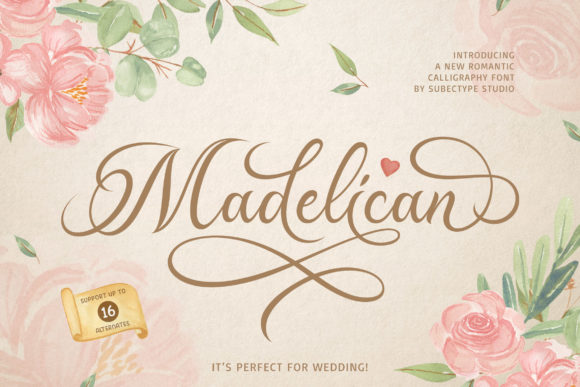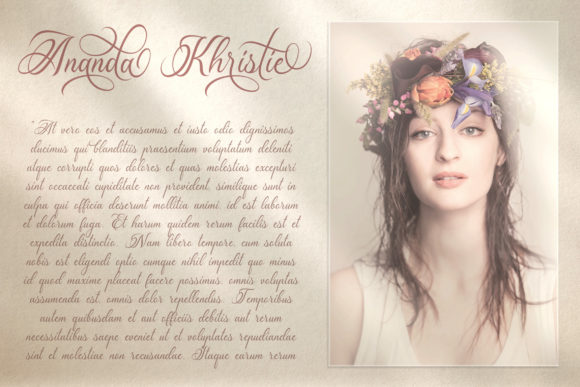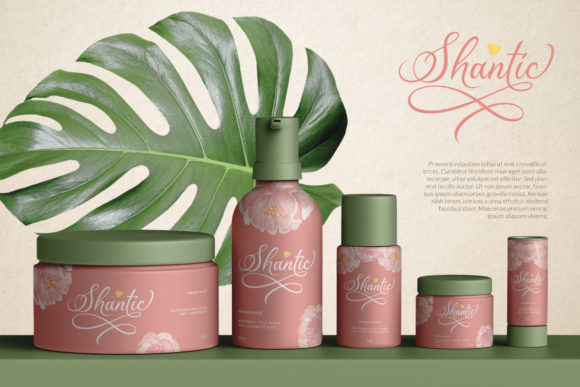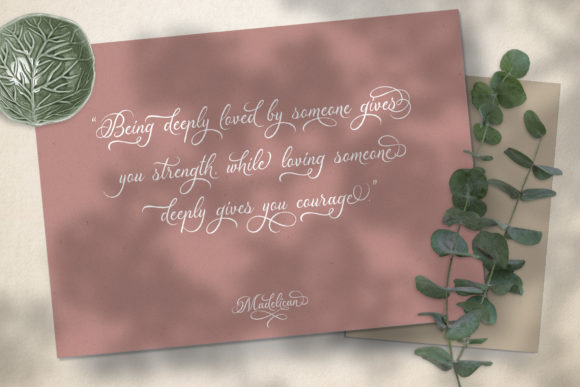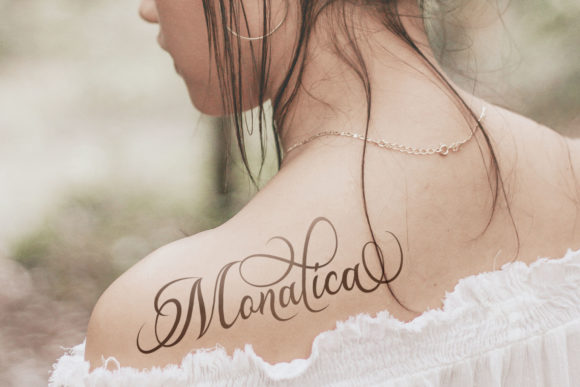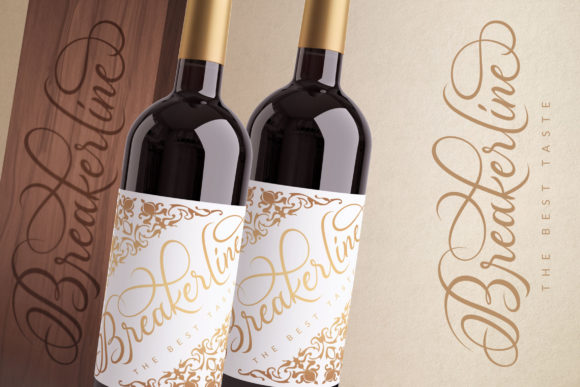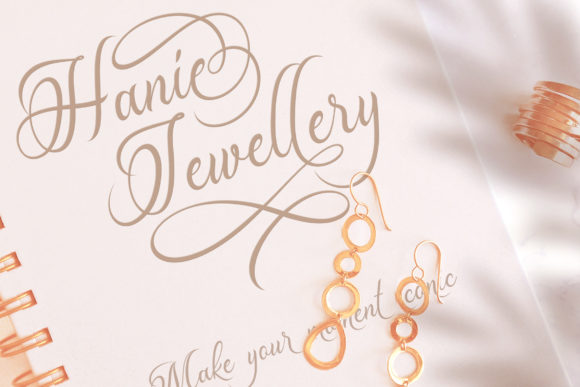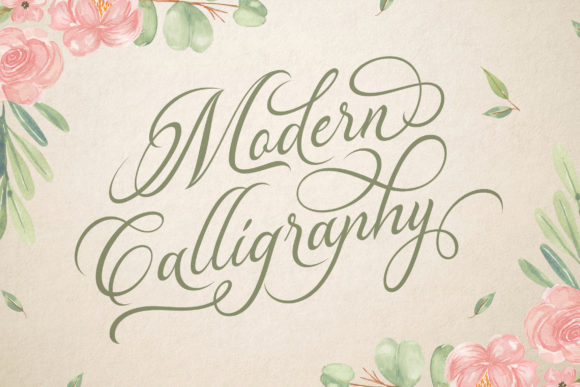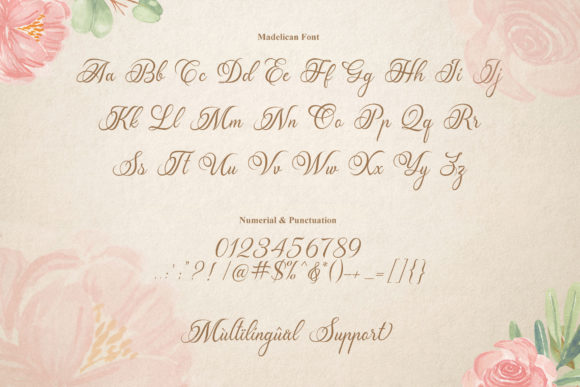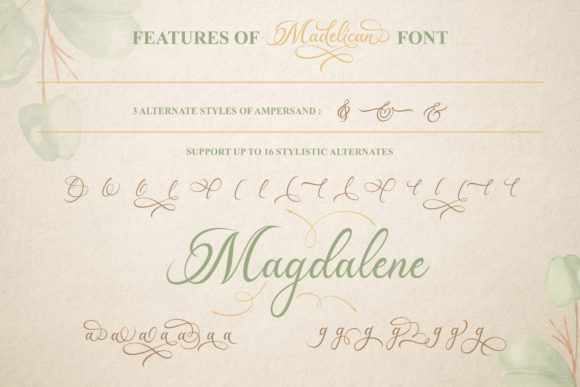
Madelican Font
About Madelican Font
Madelican is a beautiful combination of modern and romantic calligraphy. It is perfect for logos, posters, signatures and much more!